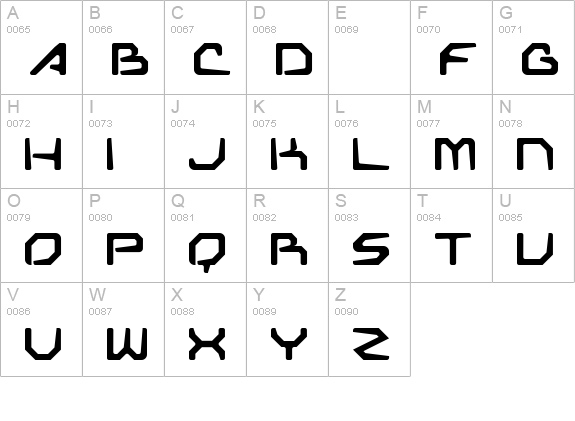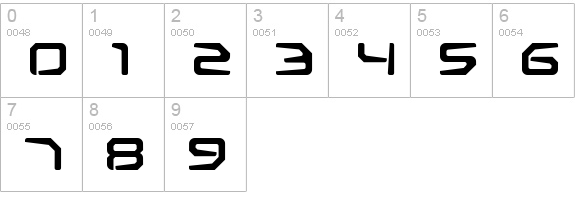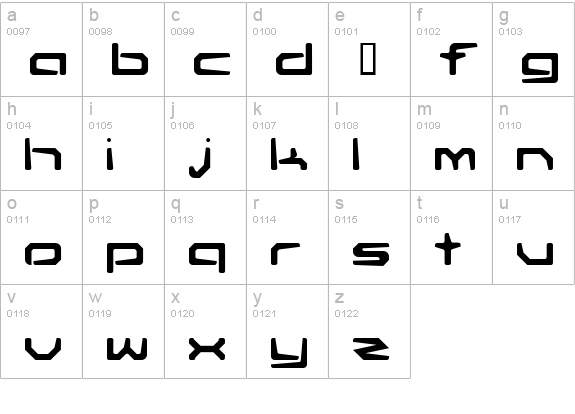
Transformer Demo Font Details
Introducing Transformer Demo, a stunning and versatile font that will truly electrify your designs! This captivating typeface combines sleek modernity with a touch of futuristic charm, making it the perfect choice for any project that requires a cutting-edge visual appeal. With its bold, dynamic letterforms, Transformer Demo commands attention and exudes confidence. Each character is meticulously crafted to create a seamless flow, resulting in a harmonious and balanced overall look. Whether you're designing a logo, website, poster, or any other creative endeavor, this font will effortlessly inject a dose of energy and professionalism into your work. One of the most enticing aspects of Transformer Demo is that it is freely available to download at FontsMarket.com. Yes, you read that right - this incredible font can be yours at no cost! FontsMarket.com is a trusted and reliable source for high-quality fonts, and with just a few simple clicks, you can add Transformer Demo to your font library without spending a dime. The versatility of Transformer Demo knows no bounds. Its wide range of uppercase and lowercase letters, numbers, and punctuation marks allow for seamless integration into any design concept. Whether you're aiming for a sleek and minimalist aesthetic or a bold and impactful look, this font will adapt effortlessly to suit your needs. Not only does Transformer Demo look incredible at large sizes, but it also maintains its legibility and visual impact even when scaled down. This makes it perfect for a variety of applications, from headlines and titles to body text and captions. No matter the context, Transformer Demo will always deliver a visually captivating and professional result. So, why wait? Elevate your designs to new heights with Transformer Demo. Download it for free at FontsMarket.com and unlock a world of creative possibilities. Transform your projects from ordinary to extraordinary with this remarkable typeface today!